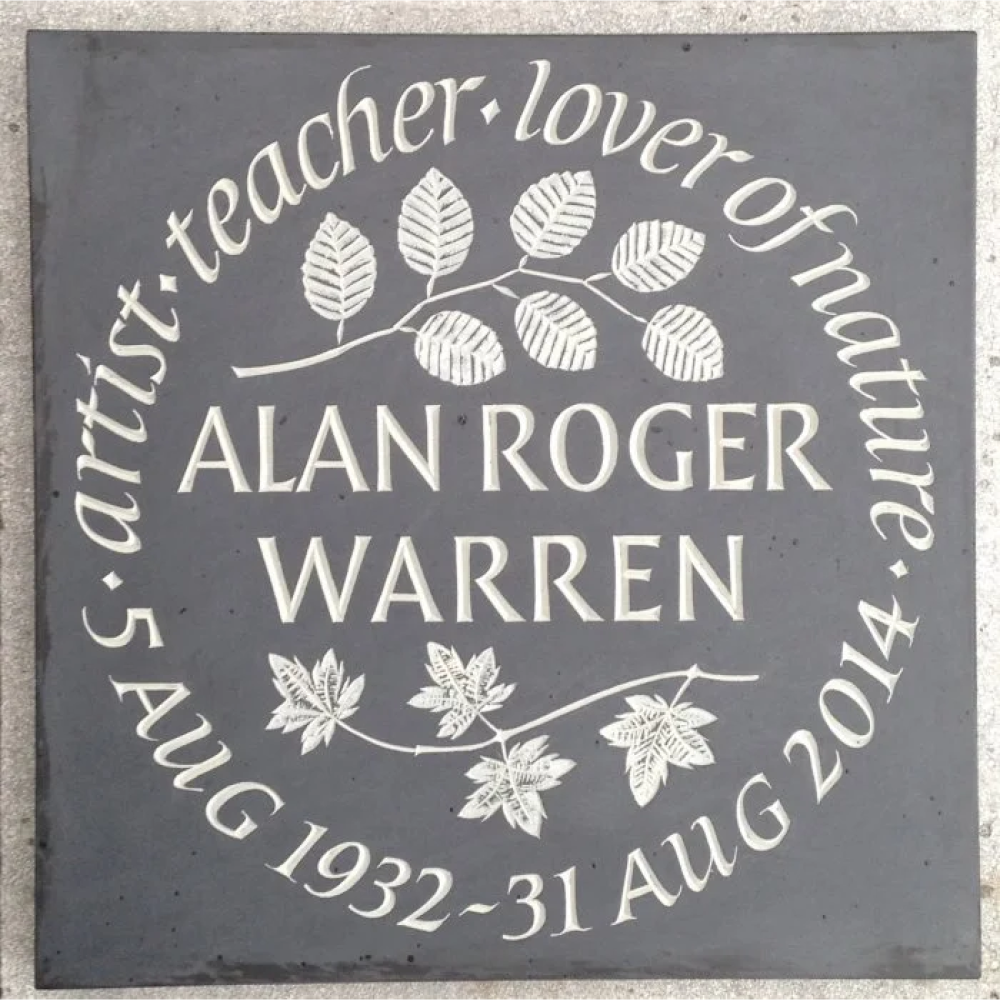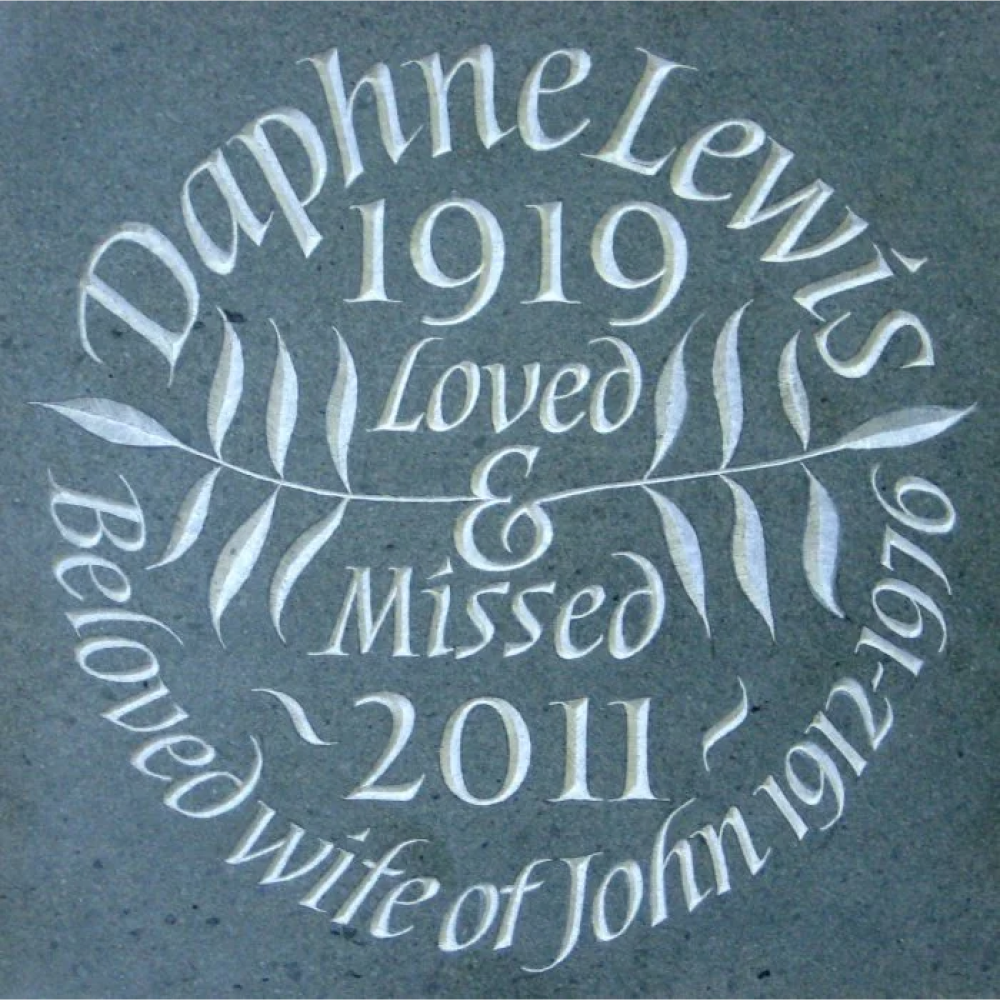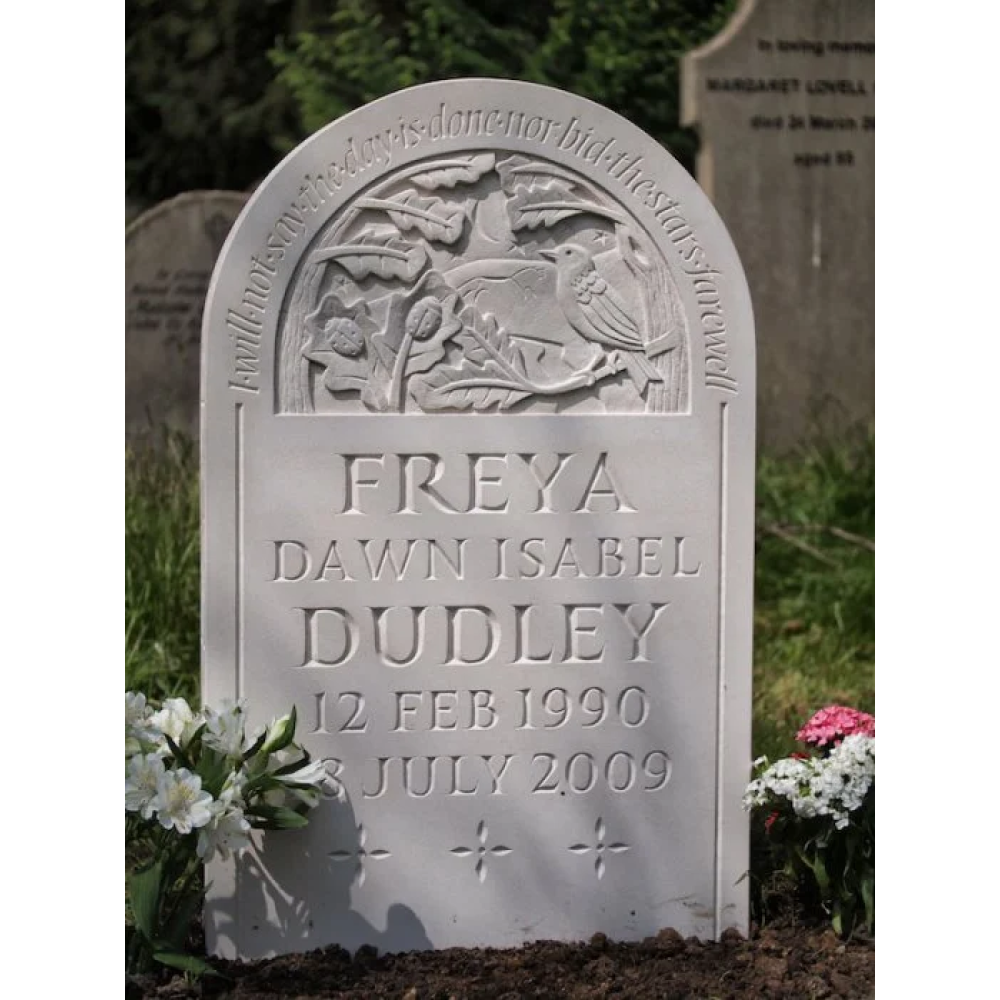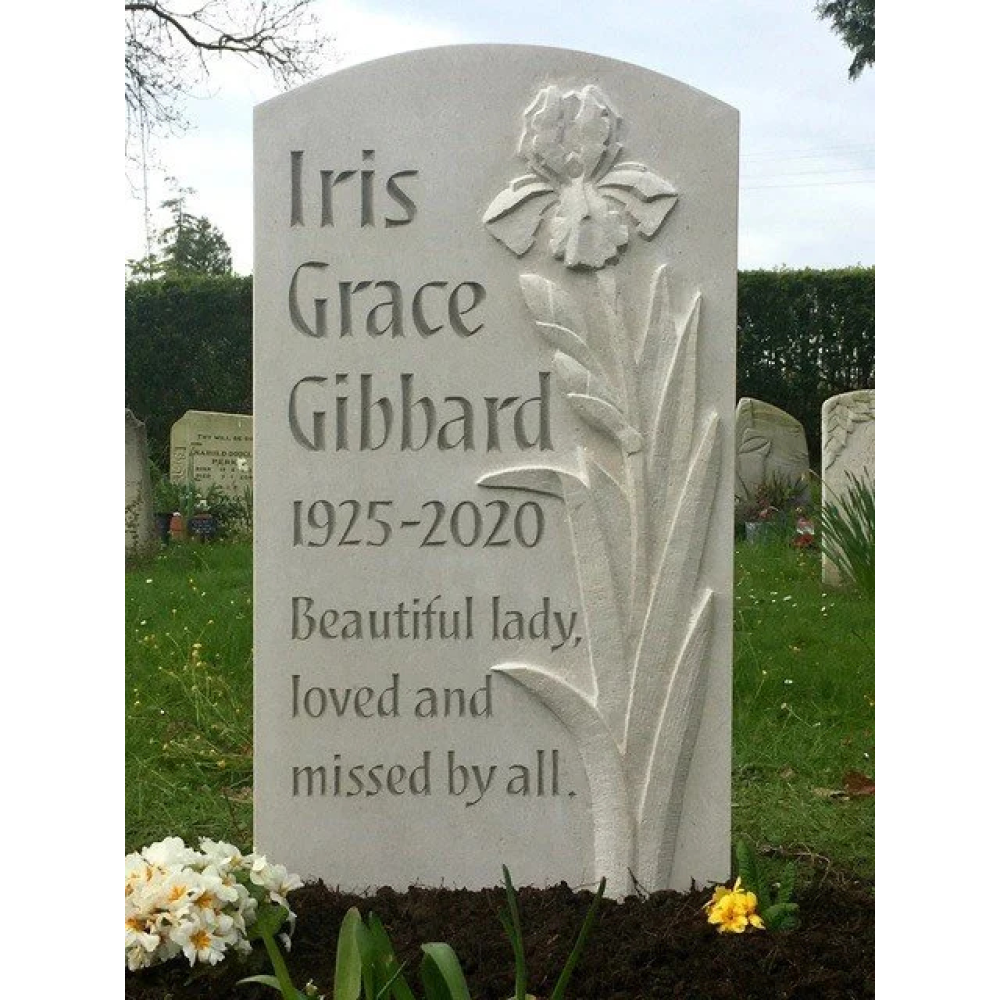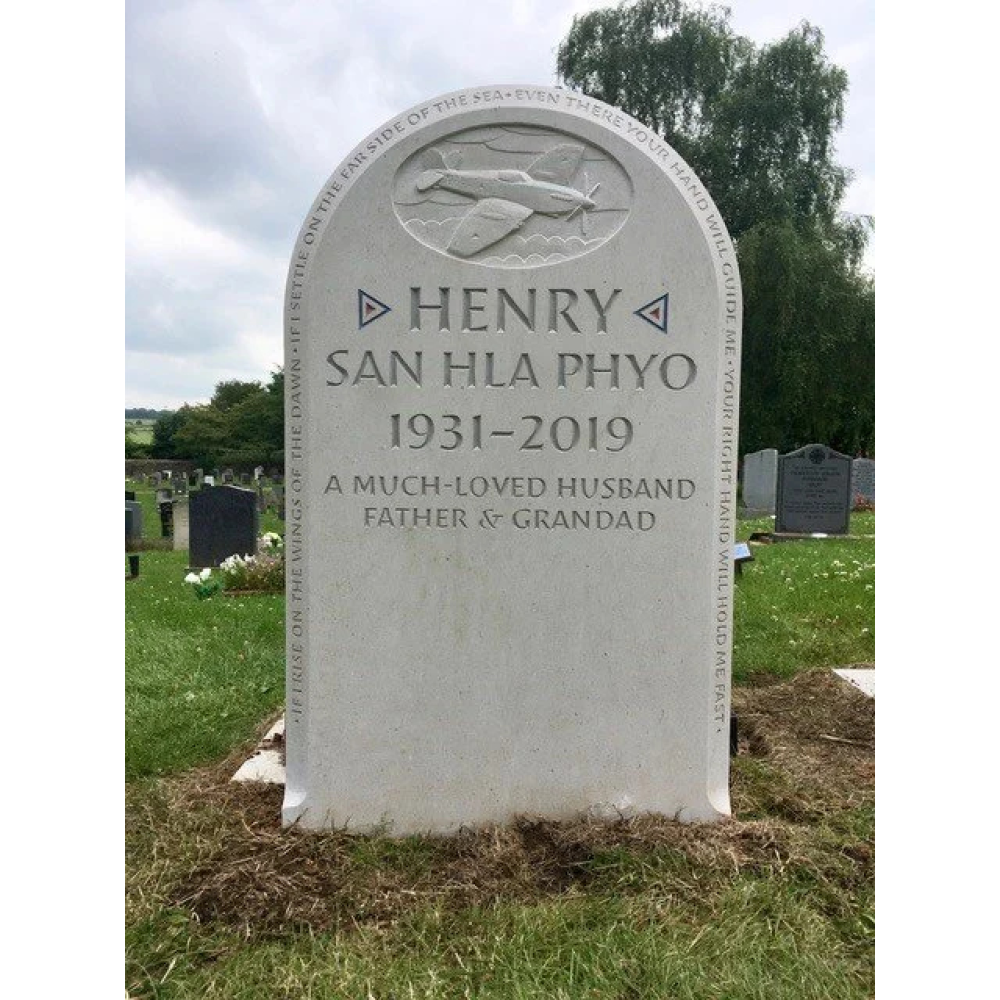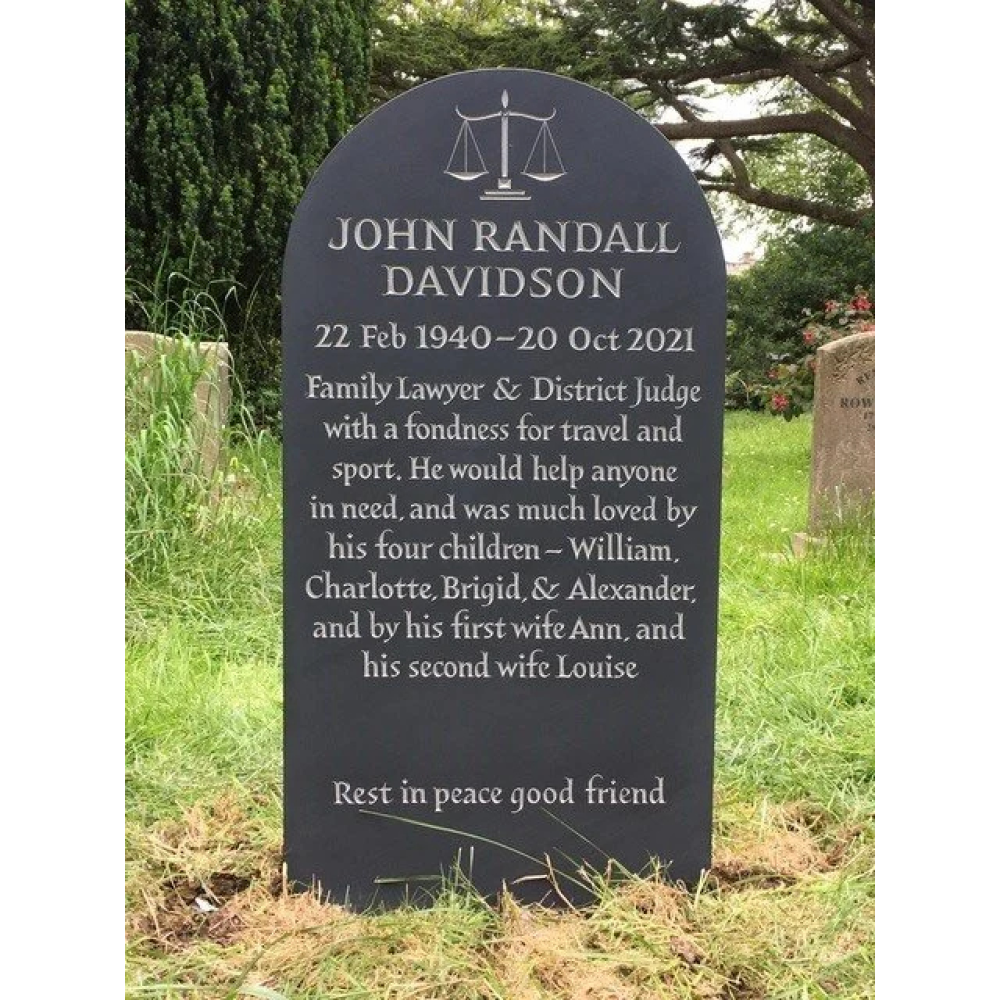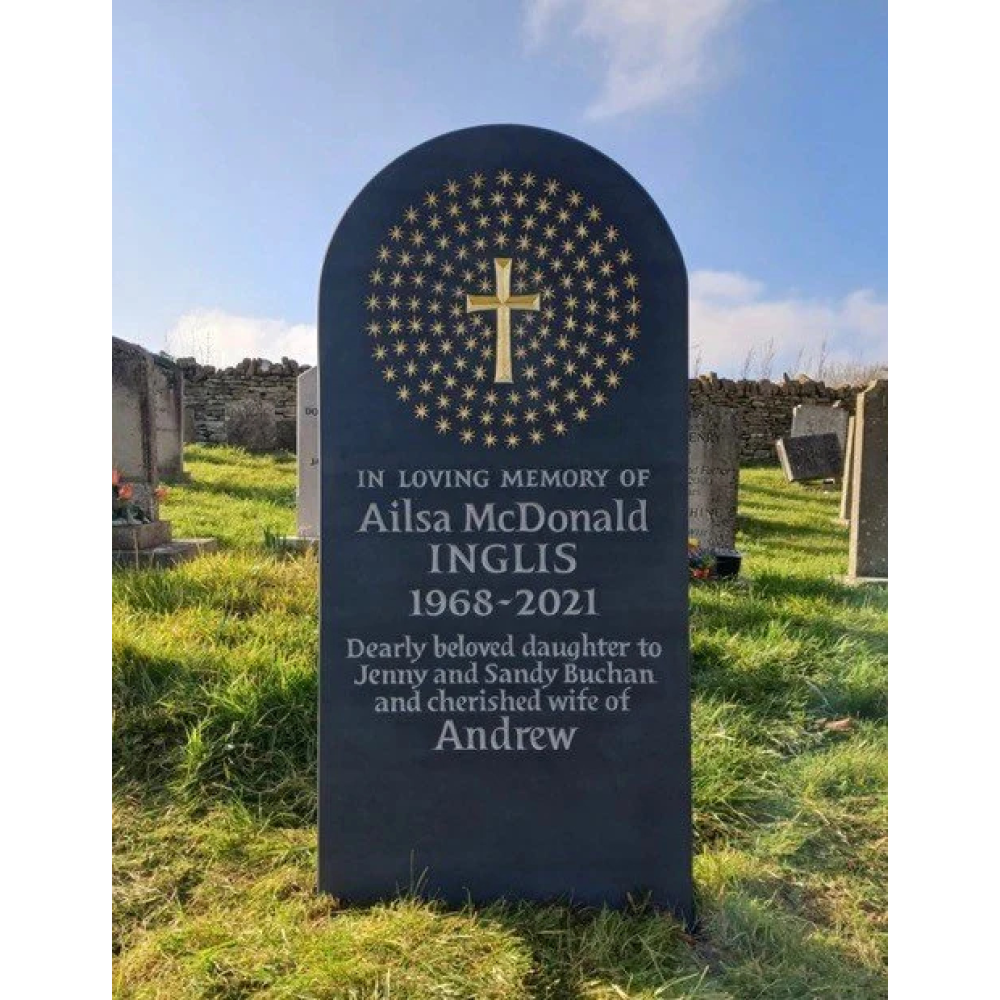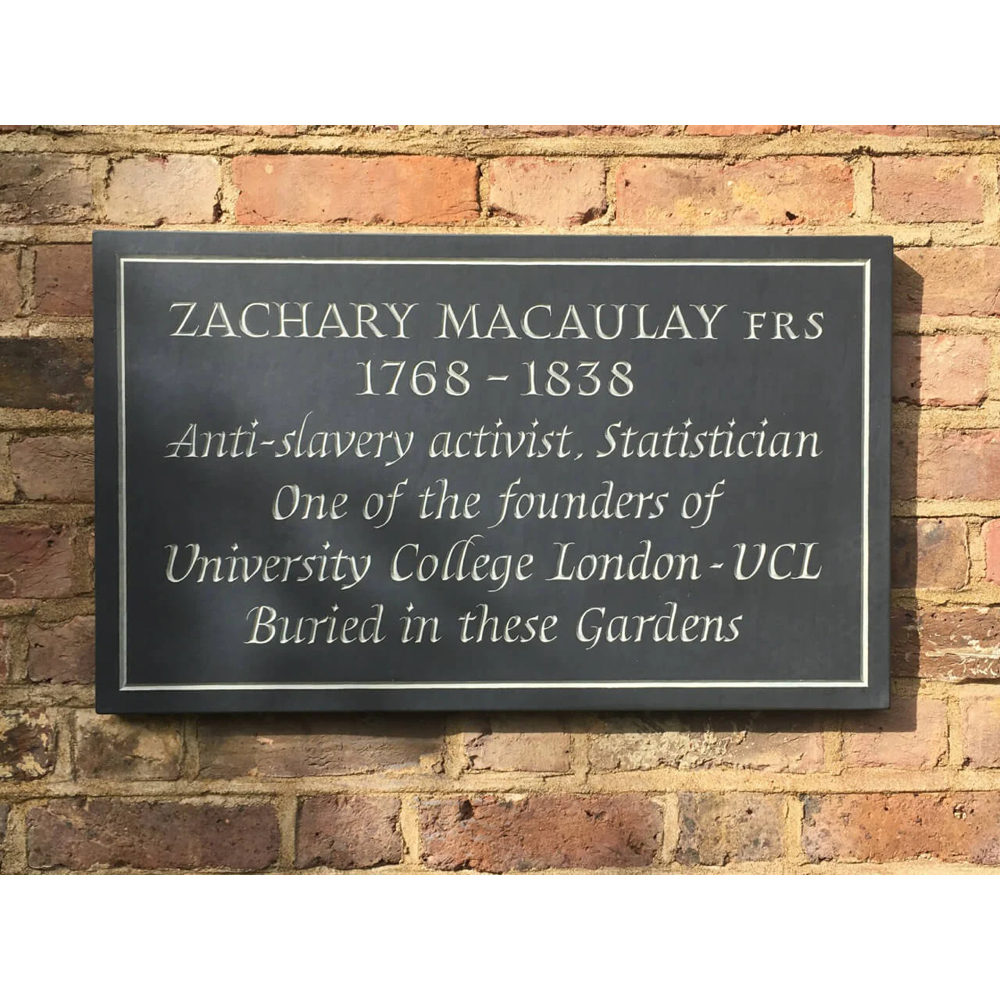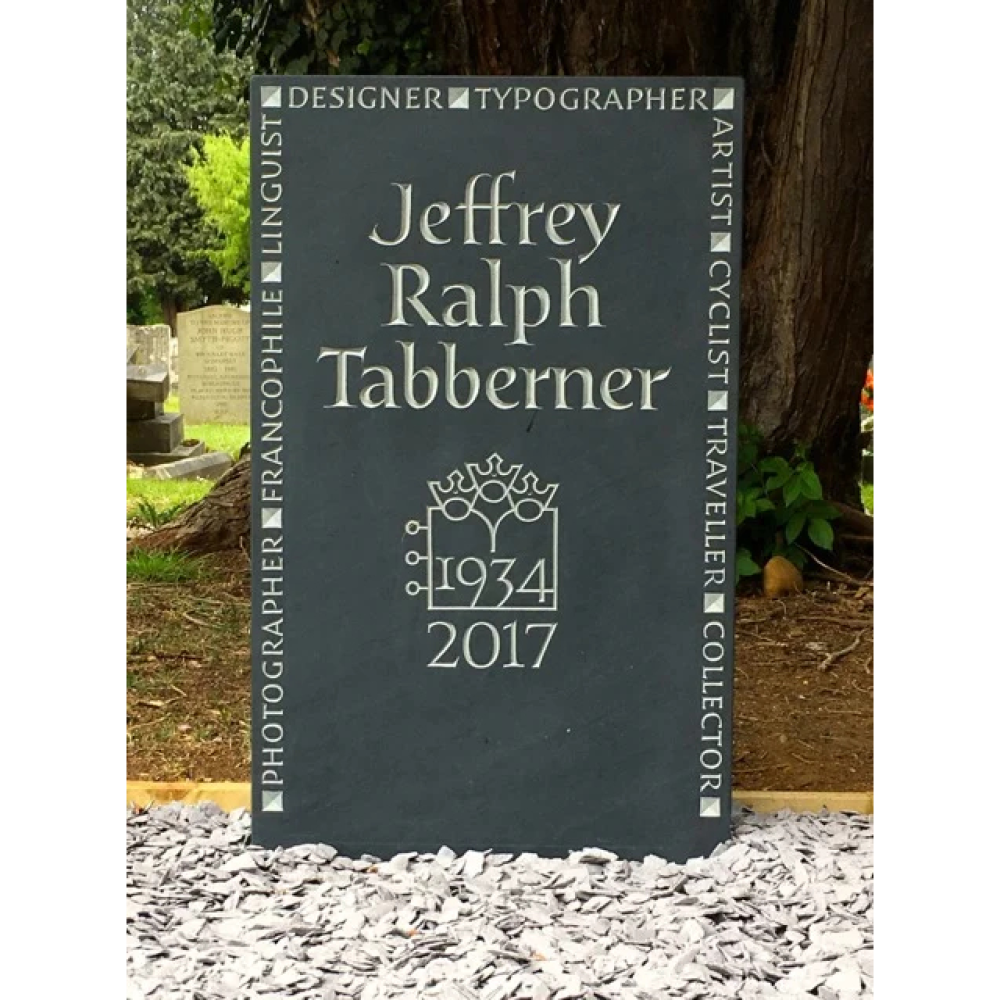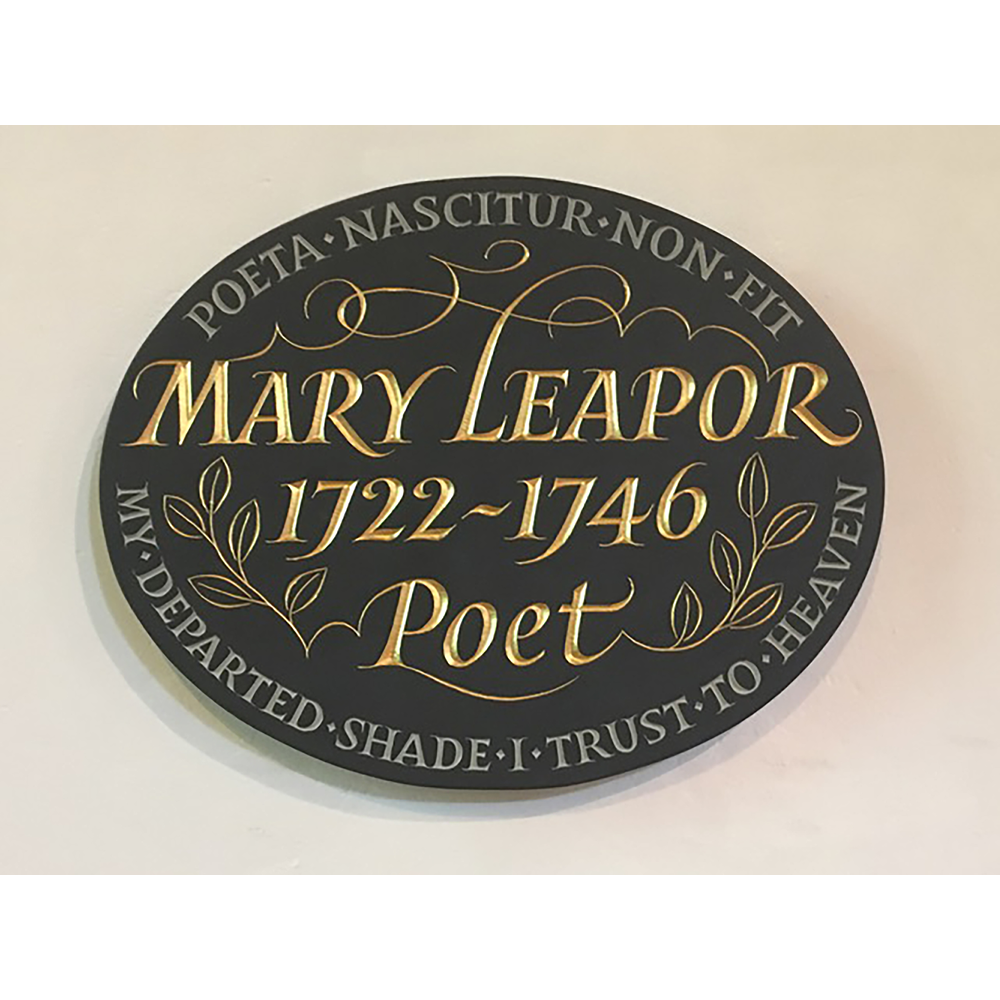
Customers come to me having found that trade suppliers of memorials are not able to meet their needs for something personal. Every memorial is a separate work of art, combining lettering with relief sculpture and stonemasonry.